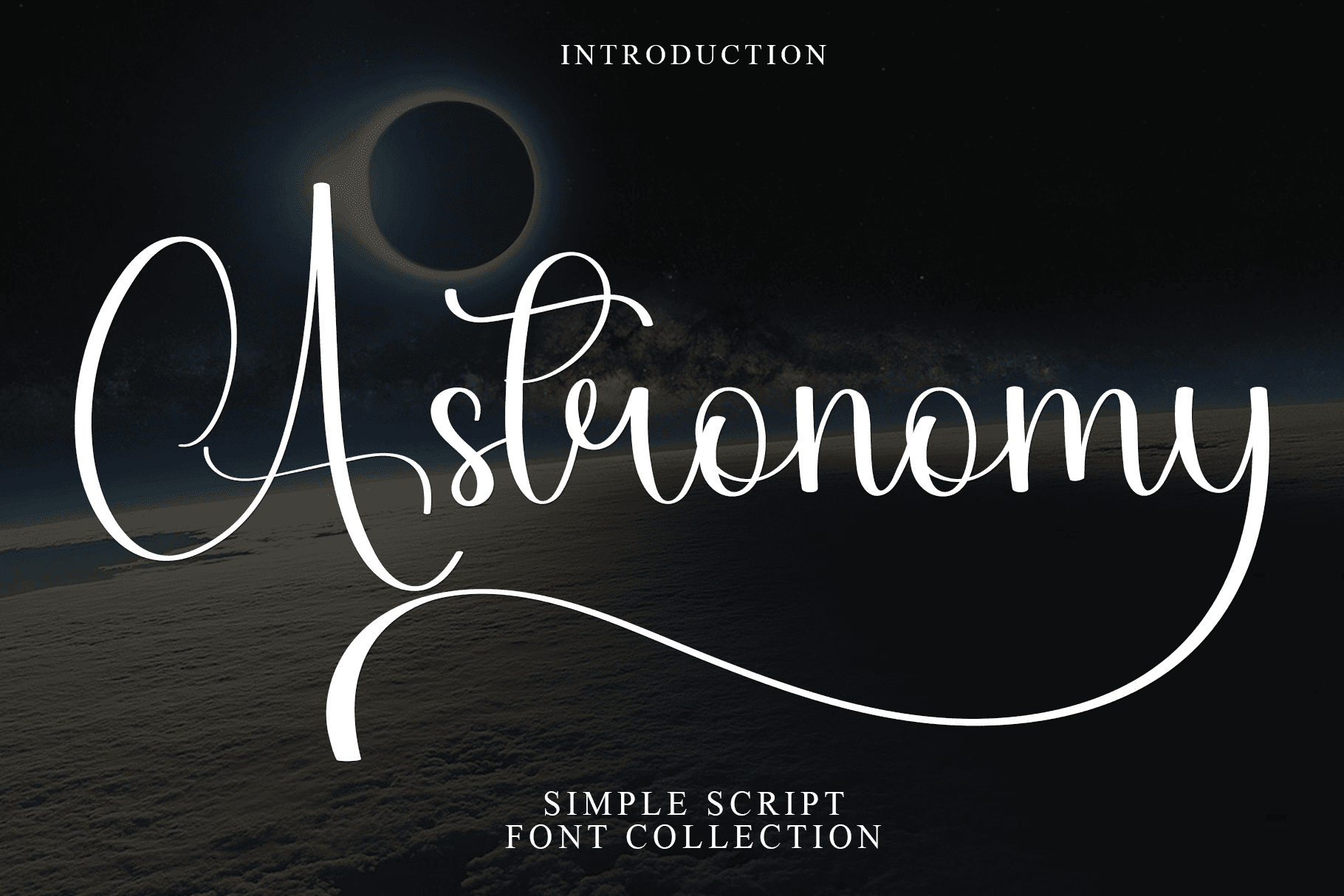
Astronomy Font: ๐ Check out Astronomy Font now! Explore this ๐ script fonts and claim your ๐ free download here. Let's start crafting together! ๐ Astronomy is a casual and creative font that exudes warmth and friendliness. Its round, playful stro...